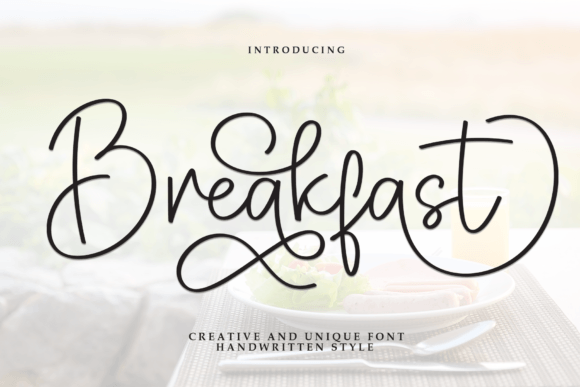
The Breakfast Font: A Stylish and Elegant Script Font for Your Creative Projects
I’ll never forget the time I was working on a wedding invitation design project, and my client asked me to create a custom font that would match the elegant and sophisticated vibe of their special day. I spent hours scouring the internet for the perfect font, but nothing seemed quite right. That’s when I stumbled upon the Breakfast Font, and it changed the game for me! 💕
An Honest Review of Breakfast Font
- ✨ The elegant and stylish script design that adds a touch of sophistication to any project
- ✅ The font’s versatility, making it suitable for various design applications, from wedding invitations to logos and business cards
- 💫 The beautiful swashes and ligatures that add a creative flair to your designs
- 🎨 The font’s ability to be paired with a wide range of fonts and design styles
While the Breakfast Font is an amazing addition to any design project, there are a few things to keep in mind:
- ⚠️ The font may not be suitable for body text, as it’s best used for headlines and titles
- 🤔 Some users may find the font a bit challenging to read at smaller sizes
If you love the Breakfast Font, you might also enjoy these similar fonts:
- Kaitlynn Script: A beautiful, elegant script font with a similar feel to Breakfast Font. Use it for wedding invitations, quotes, and greeting cards.
- Alex Brush: A lovely, handwritten script font with a more casual vibe. Use it for creative projects, such as blog headers and social media graphics.
- Pacifico: A stunning, elegant script font with a bit of a vintage feel. Use it for logos, business cards, and high-end branding projects.
- Great Vibes: A modern, stylish script font with a fun and energetic vibe. Use it for creative projects, such as posters and flyers.
The Backstory of Breakfast Font
The Breakfast Font was designed by a talented type designer who wanted to create a font that would evoke the feeling of a warm, cozy breakfast on a Sunday morning. The designer drew inspiration from classic script fonts and infused them with a modern twist, resulting in a font that’s both elegant and approachable.
Q: What is the Breakfast Font best used for?
A: The Breakfast Font is best used for headlines, titles, and creative projects that require an elegant and stylish touch, such as wedding invitations, thank you cards, and greeting cards.
Q: Is the Breakfast Font easy to read?
A: The Breakfast Font is best used at larger sizes, as it may be challenging to read at smaller sizes.